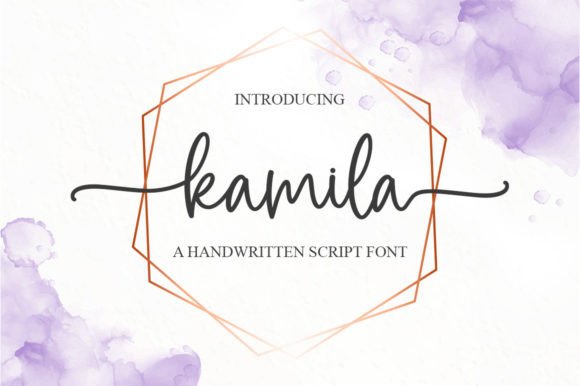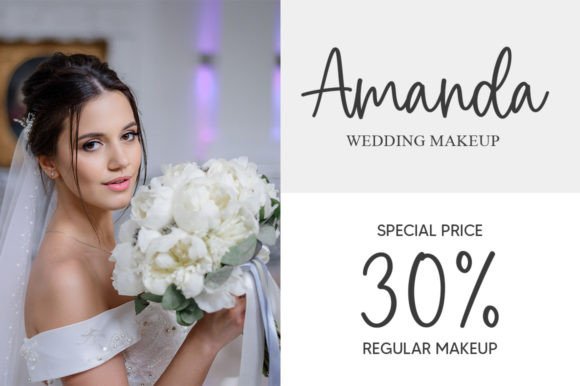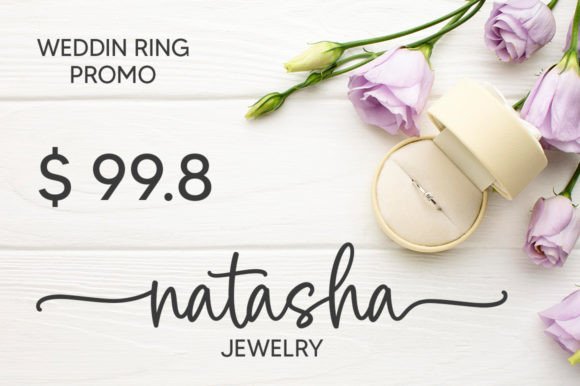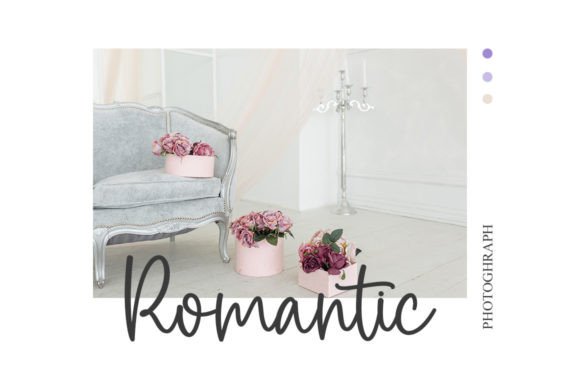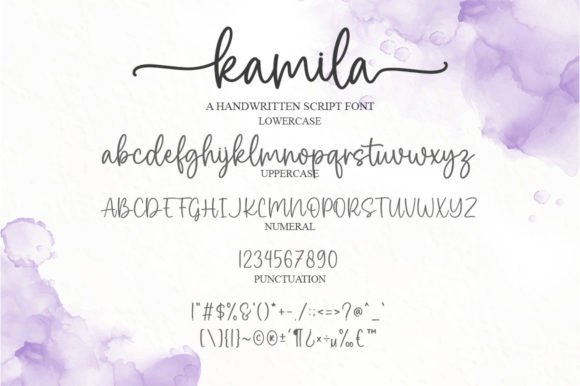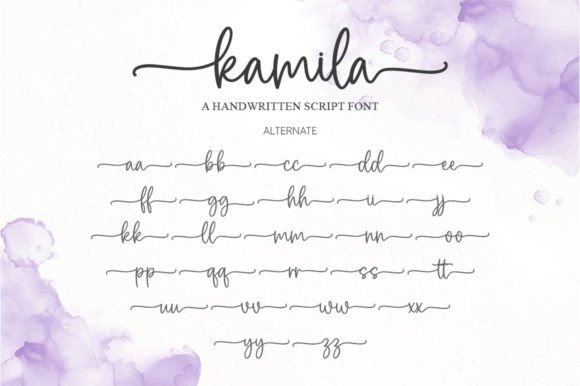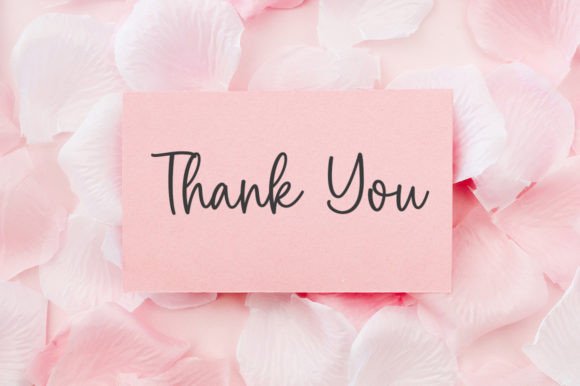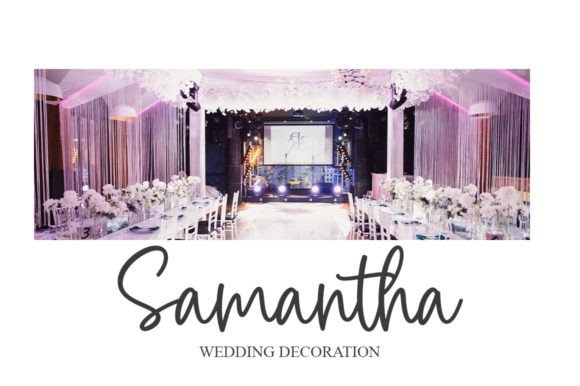
Kamila Font
About Kamila Font
“Kamila” is a beautiful, well-balanced, and modern script font that stands out with its smooth curves. This font brings a sense of elegance and sophistication, making it particularly suitable for fashion branding, editorial designs, and any project where a touch of contemporary style is desired.
The font’s smooth curves contribute to its overall aesthetic, providing a harmonious flow to the script. This quality makes “Kamila” an excellent choice for projects that require a balance between modernity and a timeless, classic feel.
One of the notable features of “Kamila” is its PUA encoding, ensuring easy access to all glyphs and swashes. This encoding facilitates seamless customization, giving designers the freedom to personalize their projects and explore various stylistic options.
Whether you’re working on fashion branding, editorial layouts, or any other creative endeavor, “Kamila” adapts effortlessly to different design contexts. Its versatility and new-style script make it a valuable asset for designers looking to infuse their projects with a font that embodies both contemporary flair and classic elegance.
In summary, “Kamila” is more than just a font; it’s a design tool that brings beauty and balance to your creative projects. With its well-crafted script, smooth curves, and PUA encoding, “Kamila” stands as a versatile choice for designers aiming to elevate their designs with a modern, elegant, and customizable script font.